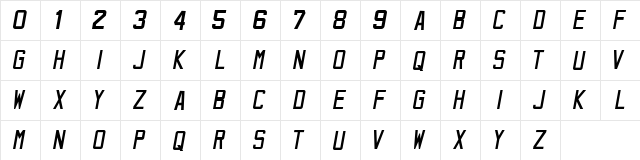
NFL Patriots Throwback Regular
Design Context for NFL Patriots Throwback Typeface
NFL Patriots Throwback takes a measured approach to typography — its balanced proportions and neutral character make it a reliable workhorse for both digital and print work.